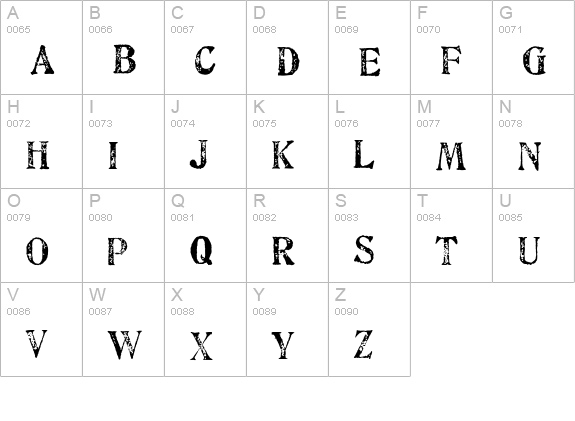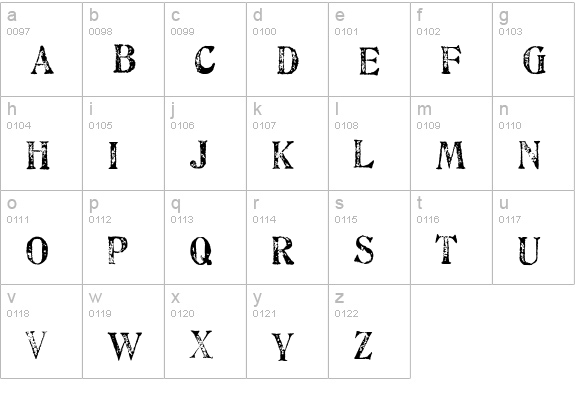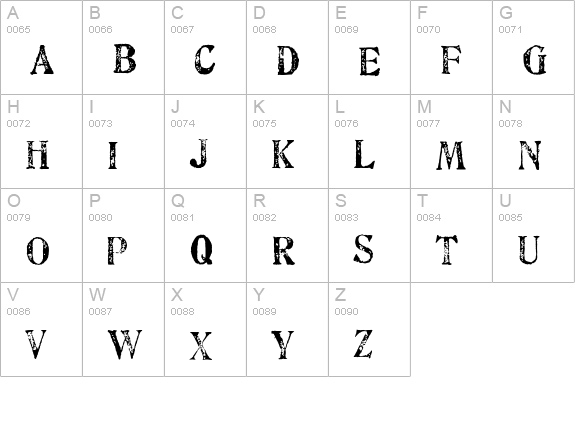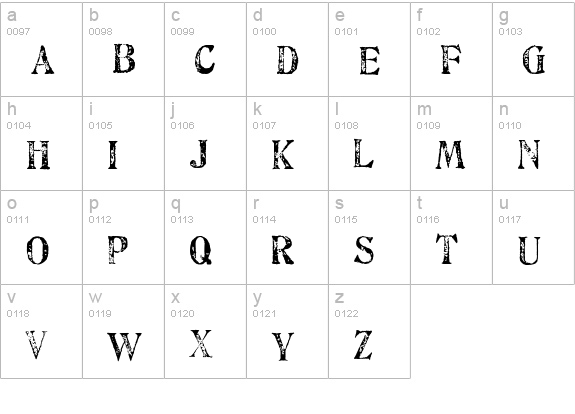
Artistamp Medium Font Details
Artistamp Medium is a balanced, medium-weight variant in the Artistamp typeface family \xE2\x80\x94 well suited to sub-headlines, navigation, and balanced editorial work.
Artistamp Medium is a beautifully crafted font that exudes elegance and creativity. With its unique and artistic design, this font is perfect for adding a touch of sophistication to your projects. The medium weight of the font strikes a perfect balance between boldness and delicacy, making it versatile for a wide range of design applications. One of the best things about Artistamp Medium font is that it is available for free download at FontsMarket.com. This means you can easily access this stunning font without any cost, making it a valuable addition to your font collection. Whether you're working on invitations, posters, branding materials, or any other design project, Artistamp Medium font is sure to elevate your work with its timeless appeal and distinctive style. Elevate your design projects with the elegance and creativity of Artistamp Medium font, now freely available for download at FontsMarket.com.